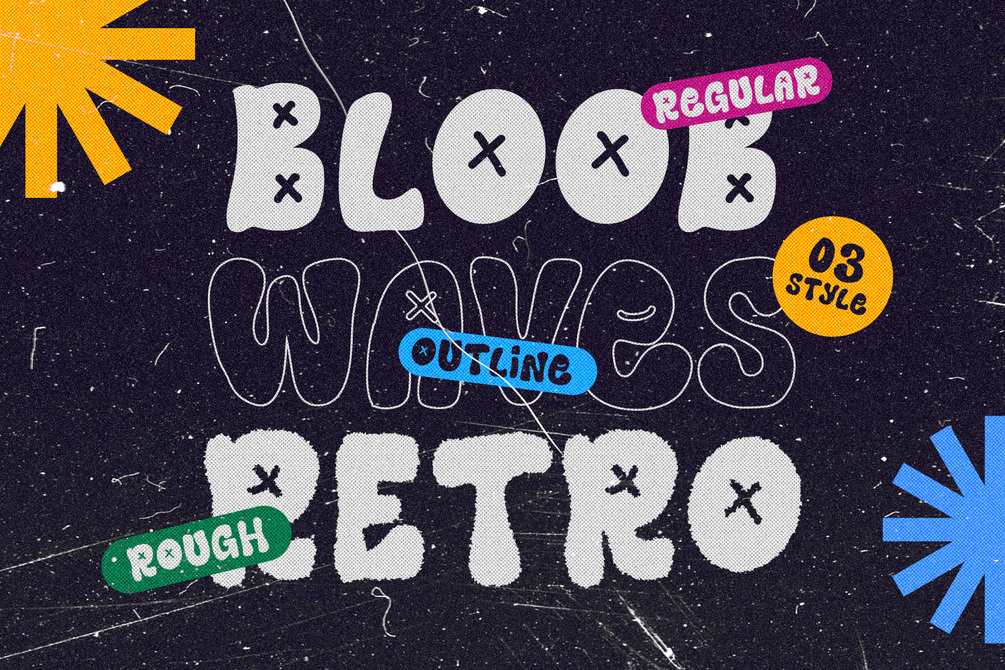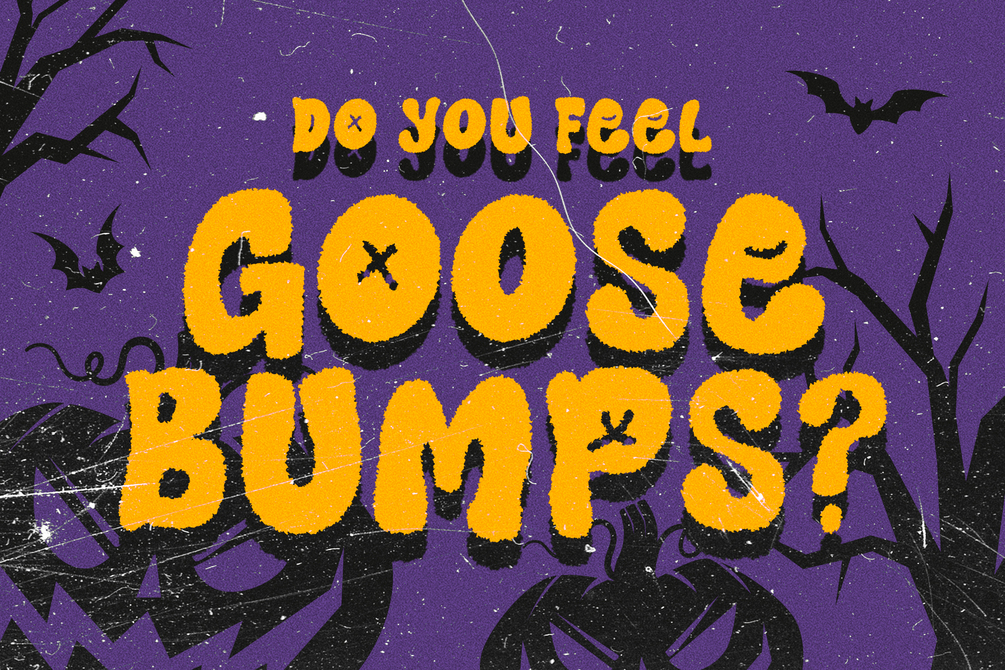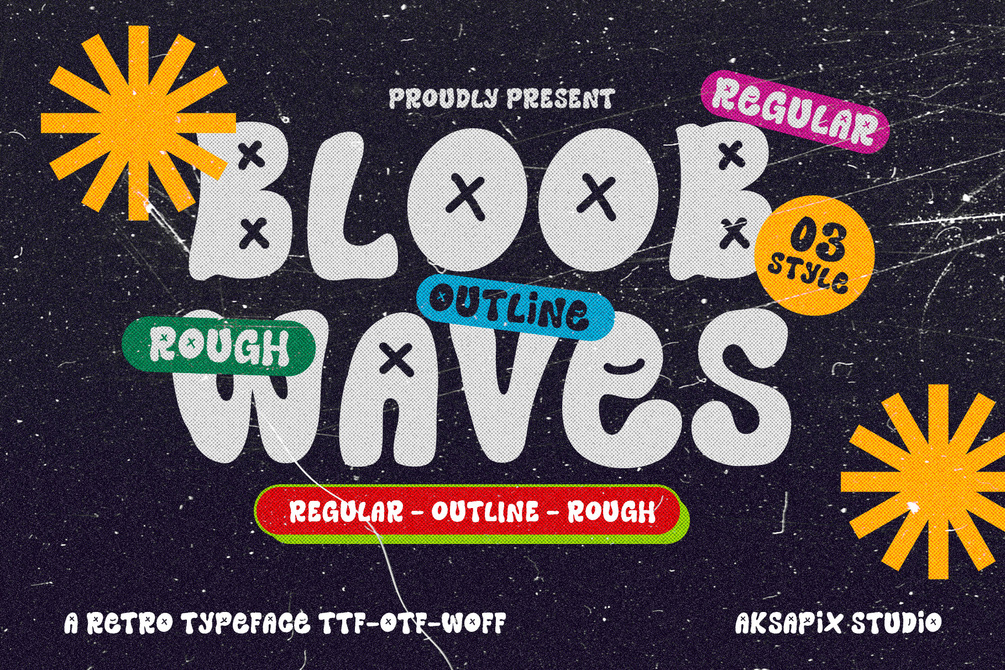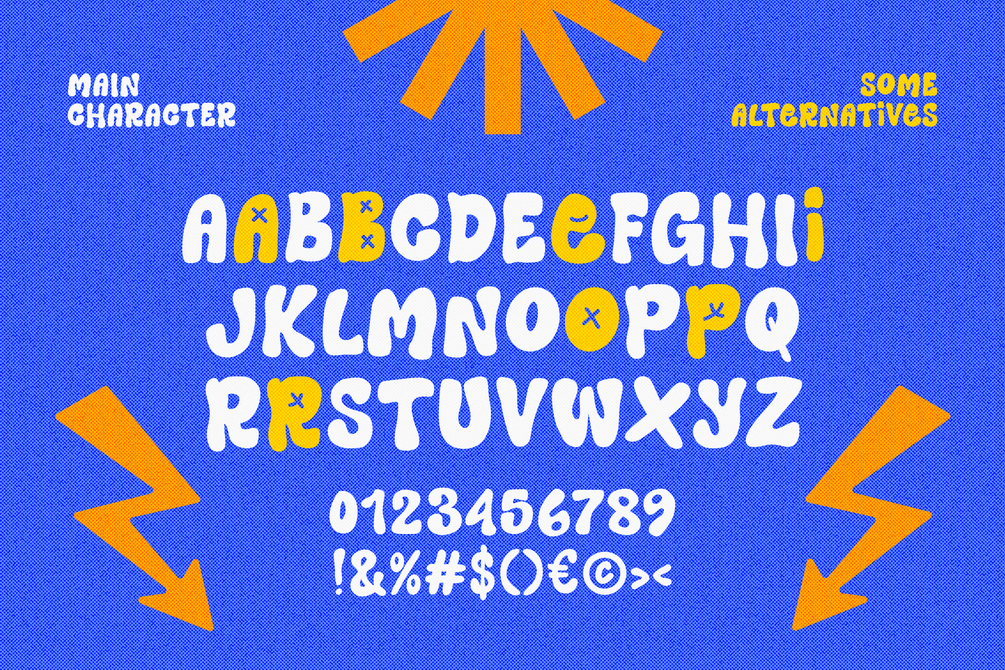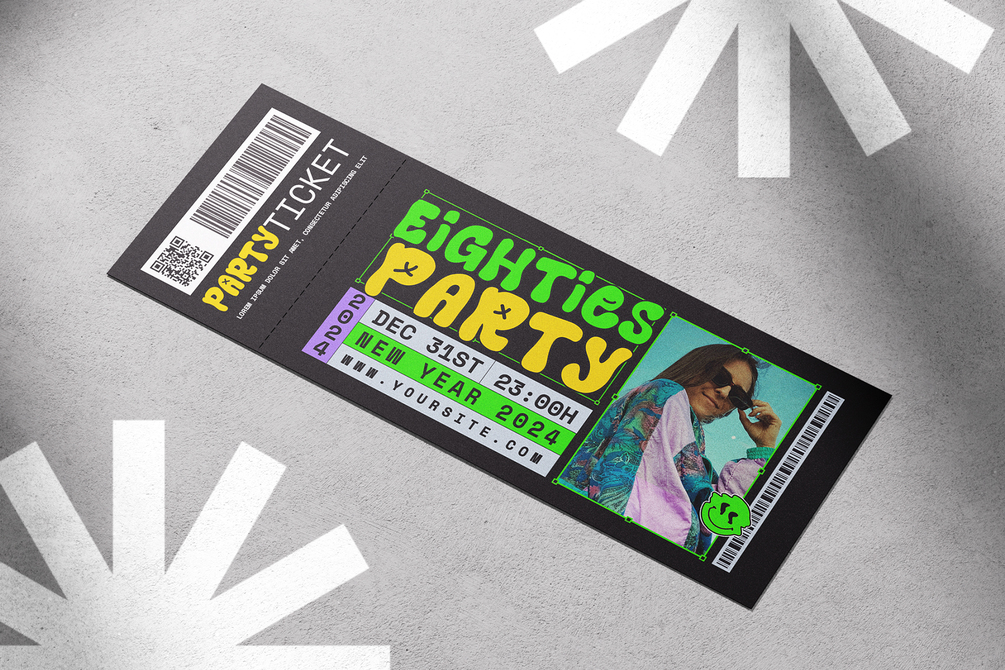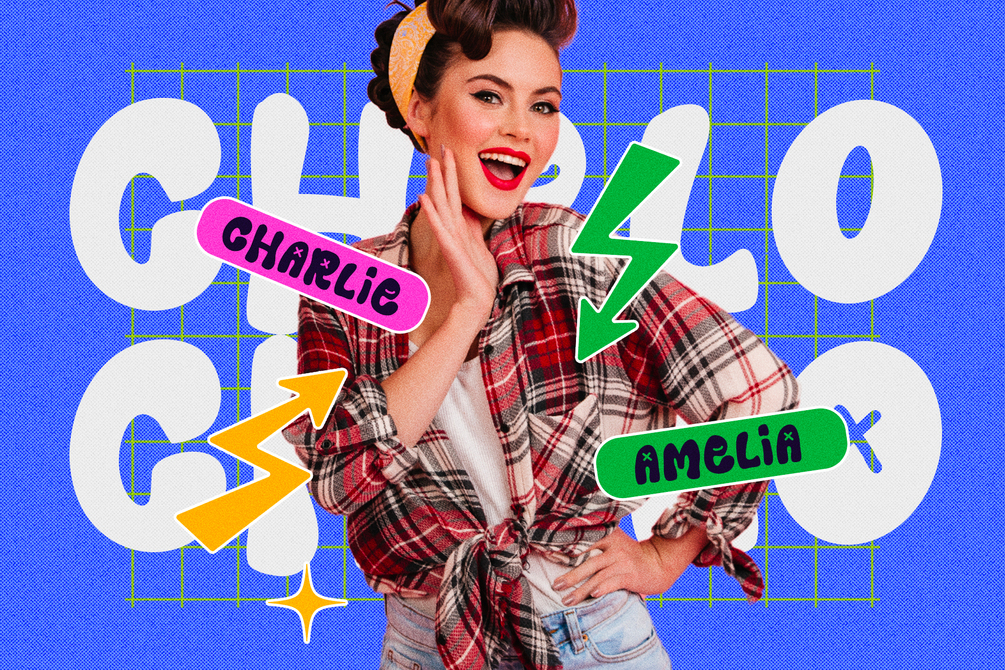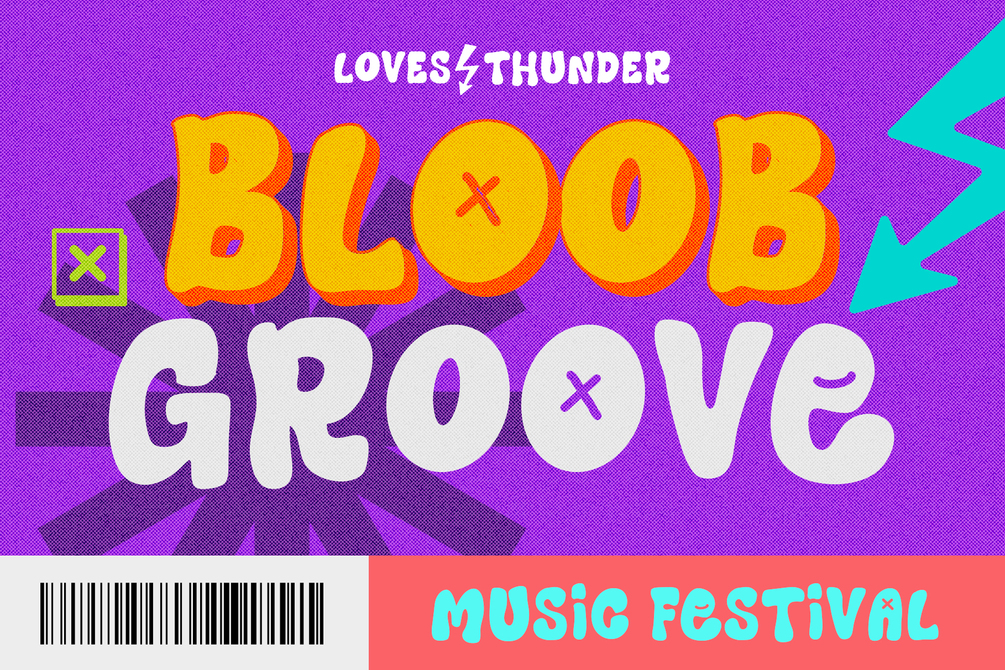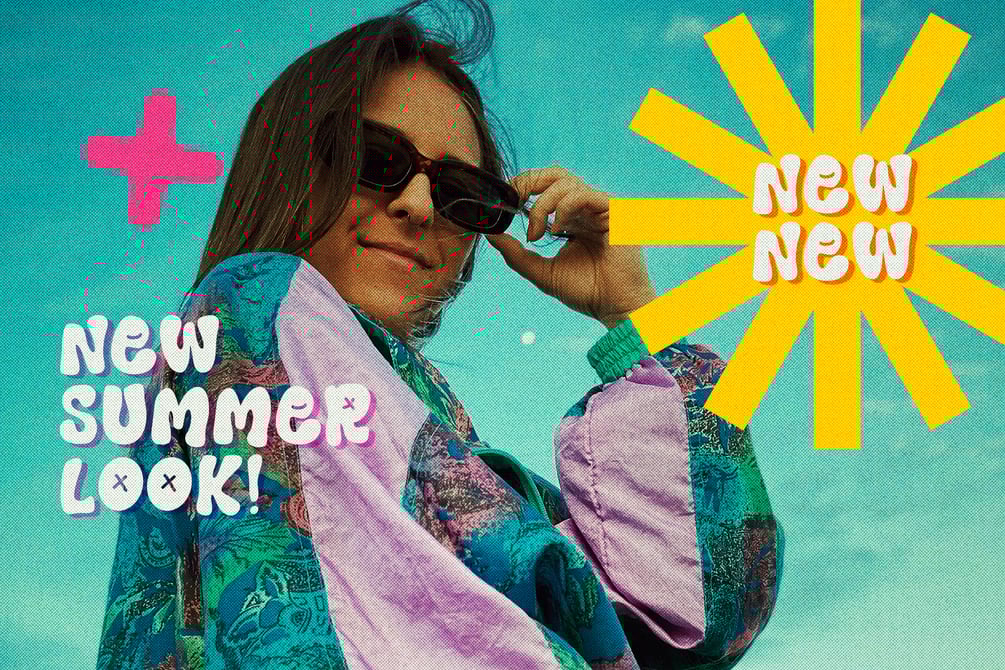
Bloob Waves - A Retro Typeface
Introducing Bloob Waves - A Retro Typeface, a stylish font designed to bring a vintage and retro flair to your designs. This typeface features all caps, stylistic alternate characters, and multilingual support, making it perfect for a wide range of creative projects.
Features:
- All Caps: Uppercase letters for a bold and uniform appearance.
- Punctuation & Numbers
- Stylistic Alternates: Customizable characters to enhance your designs.
- Multilingual Support: Ensures compatibility with various languages and locales.
- Four Styles: Regular, Outline, Rough, and Extrude for diverse design needs.
Perfect For:
- Retro Posters
- Vintage Logos
- Classic Album Covers
- Nostalgic Greeting Cards
- Old-School Social Media Graphics
Capture the essence of the past with Bloob Waves - A Retro Typeface. Whether you're designing retro posters, vintage logos, or classic album covers, this font adds a timeless charm to your projects.